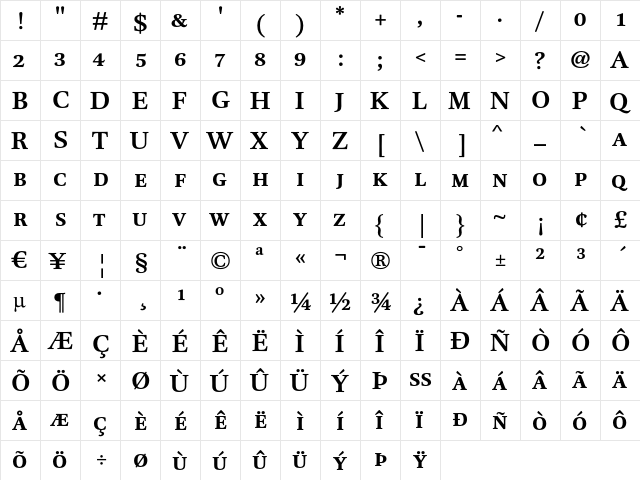
DTLUnicoT CapsBold Regular
| Foundry | Dutch Type Library |
| Designer | Michael Harvey |
Design Context for DTLUnicoT CapsBold Typeface
DTLUnicoT CapsBold offers clean, dependable letterforms without strong stylistic allegiance, making it a practical choice for designers who need flexibility. The heavy weight commands attention and anchors typographic hierarchies.